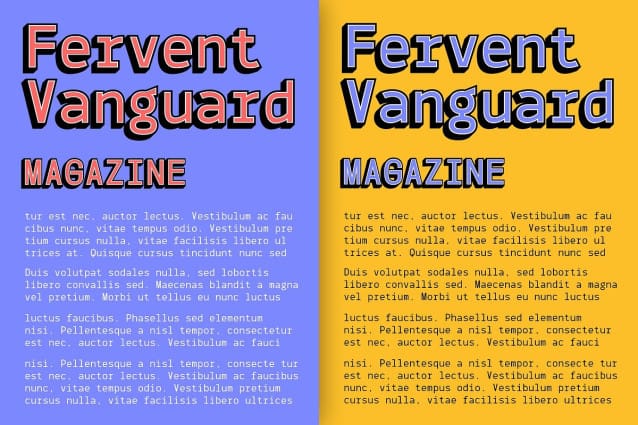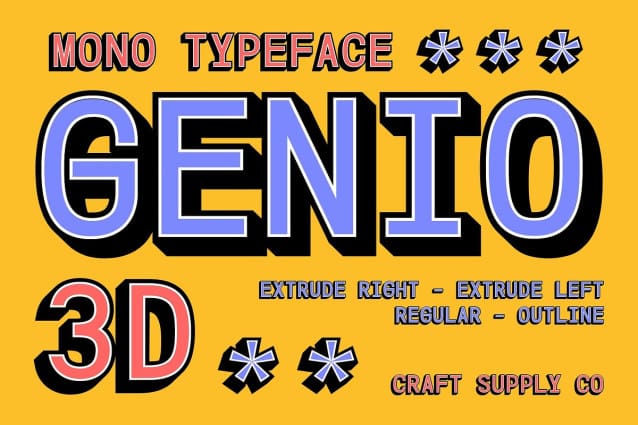
CS Genio Mono 3D Font
CS Genio Mono 3D Font enhances readability and clarity in coding and technical work with its sans-serif style. The addition of a 3D effect makes it suitable for design projects requiring a modern, futuristic, and attractive appearance, such as game design and technology design like websites.
With its versatile design, CS Genio Mono 3D Font is suitable for a variety of uses across different design fields. Its clean lines and 3D effect add depth and visual interest to any project, ensuring that your designs are both functional and visually appealing.
This font prioritizes technical appeal, making it ideal for projects that require precision and clarity. Whether used in print or digital media, this font adds a modern and technical element that resonates with viewers and enhances the overall aesthetic of your designs.
Whether you’re coding for a futuristic game or designing a cutting-edge website, this font offers a versatile and modern solution. Its combination of readability, clarity, and 3D visual appeal ensures that your designs will stand out and leave a lasting impression.